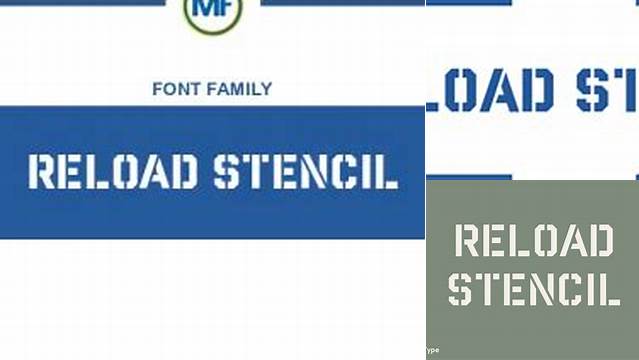
Reload Stencil Font: Free Download & Creative Uses
The Allure of Reload Stencil Font
Hey guys, let's dive into the awesome world of the Reload Stencil font! This isn't just any typeface; it's a font that screams character and attitude. If you're looking to add a bold, industrial, or even a slightly gritty feel to your designs, this font is an absolute go-to. Its stencil design, characterized by the characteristic breaks in the letters, gives it a unique utilitarian vibe that's incredibly versatile. Think military markings, industrial signage, or even that edgy poster design you've been planning. The Reload Stencil font free download option makes it super accessible for everyone, from students working on projects to professional designers looking to expand their toolkit without breaking the bank. We'll explore why this font is so popular, where you can snag it for free, and some cool ideas on how to use it to make your projects pop. Get ready to level up your design game with this striking font!
Why Choose Stencil Fonts Like Reload?
So, what's the deal with stencil fonts, and why is the Reload Stencil font a standout? Well, guys, stencil fonts have a rich history rooted in practicality. Originally, they were designed so that letters could be cut out of a stencil material (like cardboard or metal) and sprayed or painted onto a surface without the insides of letters like 'O' or 'A' falling out. This practical origin gives them an inherent ruggedness and a distinct visual style. The Reload Stencil font perfectly captures this essence, offering clean lines with those essential stencil breaks. It's this unique characteristic that makes it stand out from standard serif or sans-serif fonts. When you use a font like Reload, you're not just choosing letters; you're choosing a style that communicates strength, durability, and a no-nonsense approach. It's fantastic for projects where you want to convey a sense of urgency, authority, or even a retro, wartime aesthetic. The visual interest created by the stencil cuts adds a layer of texture and depth that can make even simple text look dynamic. Plus, in the digital age, this historical nod adds a cool, authentic touch to modern designs. It’s a way to be both contemporary and classic simultaneously, which is a winning combination for any designer.
Key Characteristics of Reload Stencil
The Reload Stencil font, guys, is all about its distinct personality. What really sets it apart are those iconic stencil breaks. These aren't just random gaps; they're strategically placed within the letterforms to maintain legibility while embracing the stencil aesthetic. You'll notice that the strokes often have a uniform thickness, contributing to its clean, geometric, and somewhat blocky appearance. This uniformity makes it surprisingly readable, even at smaller sizes, which is a huge plus for design work. The overall feel is decidedly industrial and robust, reminiscent of stamped metal or painted signs on concrete walls. It’s a font that doesn’t shy away from making a statement. Think of the bold, impactful headlines you can create, or the way it can instantly add a sense of authenticity to a design that needs that gritty, utilitarian edge. The simplicity of its design is deceptive; it carries a lot of visual weight and impact. Whether you're using it for a poster, a logo, or even t-shirt graphics, the Reload Stencil font brings a unique blend of historical reference and modern design sensibility. It’s a font that commands attention and communicates a clear message of strength and purpose. Its versatility lies in its ability to be both strong and surprisingly adaptable, making it a valuable asset in any designer's arsenal. The clean, no-fuss nature of the design ensures it won't overpower other elements in your layout but will certainly anchor them with its distinctive style.
Practical Applications: Where to Use Reload Stencil
So, where can you actually use this awesome Reload Stencil font free download? The possibilities are pretty vast, guys! Its industrial and military-inspired aesthetic makes it perfect for designs that need to convey toughness, authority, or a rugged feel. Think about creating eye-catching posters for events like music festivals with a punk or rock vibe, or even for military-themed parties. Logos for businesses in construction, mechanics, or outdoor adventure gear can really benefit from its strong, no-nonsense look. It’s also fantastic for branding where you want to project an image of durability and reliability. Imagine using it for packaging design for rugged products, or for creating impactful headlines in magazines or websites that cover topics like extreme sports, cars, or technology. Even in more creative fields, like graphic novels or comic book lettering, it can add a unique stylistic flair to dialogue or titles, especially for characters with a tough background or in action-heavy scenes. Don't underestimate its power for merchandise like t-shirts, hats, or tote bags; a well-placed Reload Stencil design can become a real conversation starter. For educational purposes, it's great for creating materials related to history, engineering, or even art projects that explore industrial design. The key is to leverage its inherent character to enhance the message of your design. It’s a font that tells a story just by its presence, adding layers of meaning and visual interest to whatever it graces.
Designing with Stencil Breaks: Tips and Tricks
Working with a stencil font like Reload can be a bit different from your everyday fonts, but that's where the fun is, guys! The key is to embrace those stencil breaks. Instead of fighting them, use them to your advantage. They create natural visual pauses that can actually improve readability if used correctly. For headlines, consider letting the stencil effect dominate. You can pair the Reload Stencil font with a simpler, cleaner sans-serif font for body text to create a nice contrast and ensure readability for longer passages. This way, the stencil font shines where it's needed most – for impact – while the supporting font handles the heavier reading load. Don't be afraid to experiment with sizing and spacing (kerning and leading). Stencil fonts can sometimes look a bit cramped or too spaced out, so fine-tuning these settings is crucial for achieving a polished look. Play around with color too! While they often evoke a monochrome, industrial feel, Reload Stencil can look surprisingly vibrant when used in bright colors on a contrasting background. Think about how the breaks interact with the background color – sometimes a subtle overlap or a sharp contrast can create really interesting visual effects. And remember, the stencil nature implies a certain process, so consider designs that mimic that sprayed or stamped look, perhaps using textures or overlays to complement the font's inherent style. It’s all about understanding the font’s DNA and working with it to create something truly unique and visually arresting.
Reload Stencil vs. Other Stencil Fonts
When you're on the hunt for that perfect stencil vibe, you'll find a whole world of options out there, guys. So, how does the Reload Stencil font stack up against others? Many stencil fonts lean heavily into a very specific look – think military stencil fonts that are almost exclusively blocky and utilitarian, or decorative stencil fonts that might have more flourishes. Reload Stencil often strikes a fantastic balance. It retains that essential industrial, robust stencil feel, but it usually offers a cleaner, more refined edge compared to some of the grittier, more distressed options. This makes it incredibly versatile. While a font like